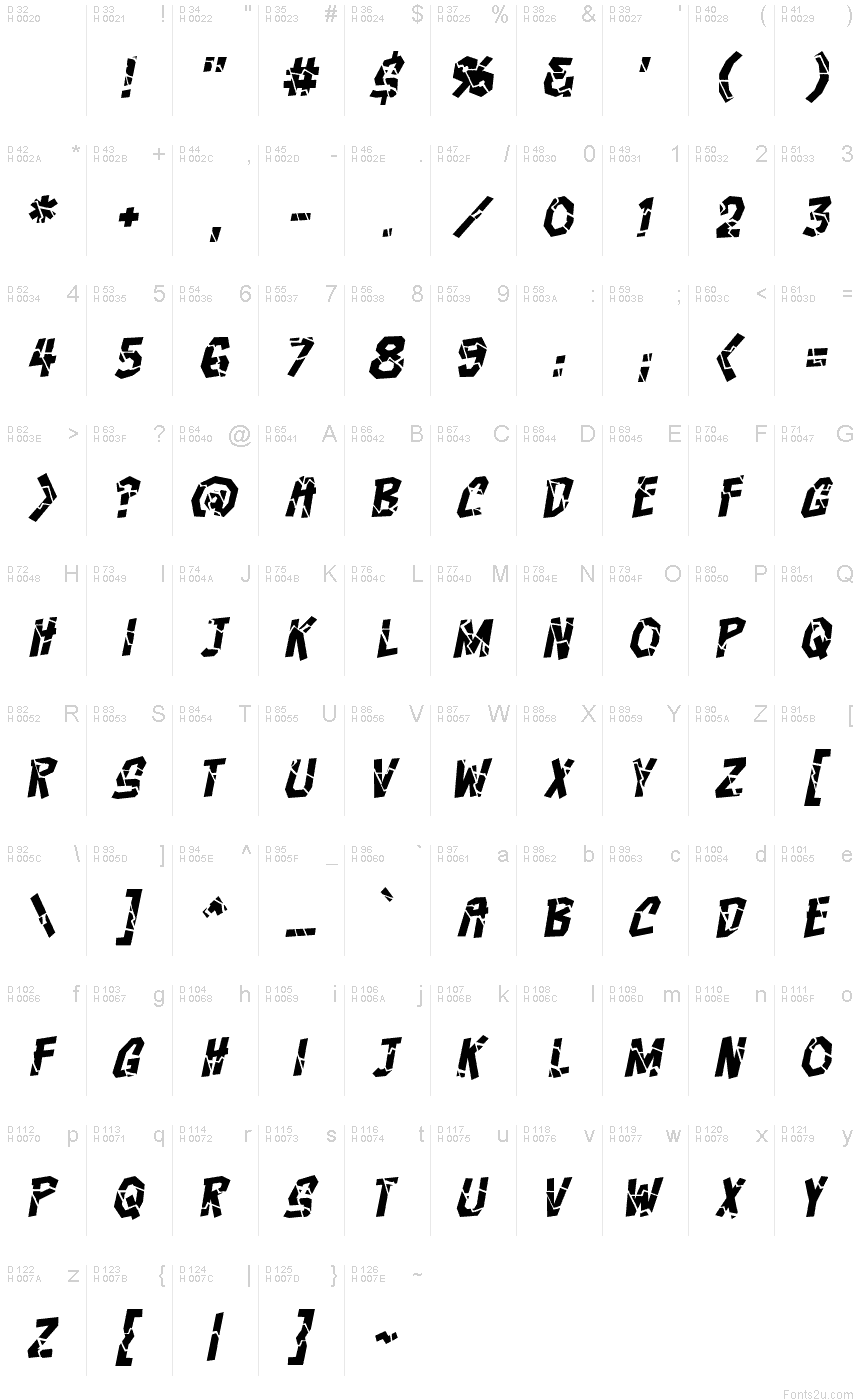
Crashcourse BB Italic by Nate Piekos of Blambot.com is a free distorted comic display font built from hefty, sharply angled capitals and a forward slant. The letters pitch and buckle like cut paper, with jagged edges, broken interior shapes, irregular stroke widths, and shard-like gaps.
A skate label or action-sports brand could use its fractured construction across merchandise and packaging, where the lettering echoes scraped boards, torn stickers, and impact marks. It also fits game graphics and music posters, turning a name or product line into an illustrated crash emblem rather than neutral type in a youth-focused identity system.